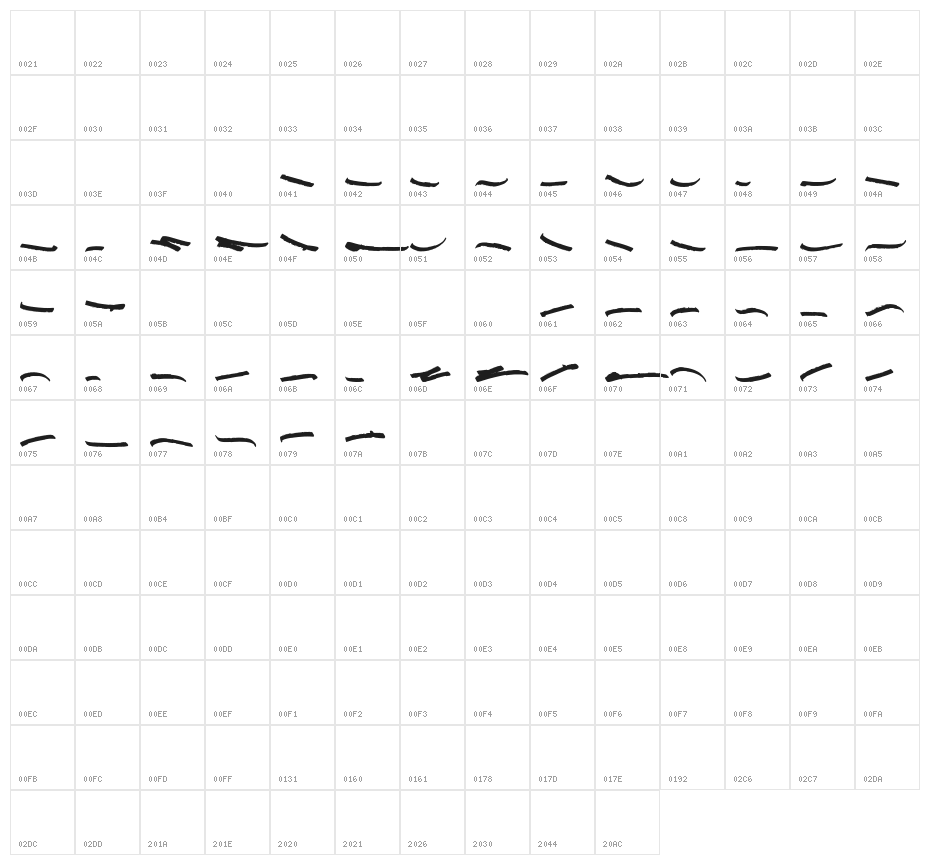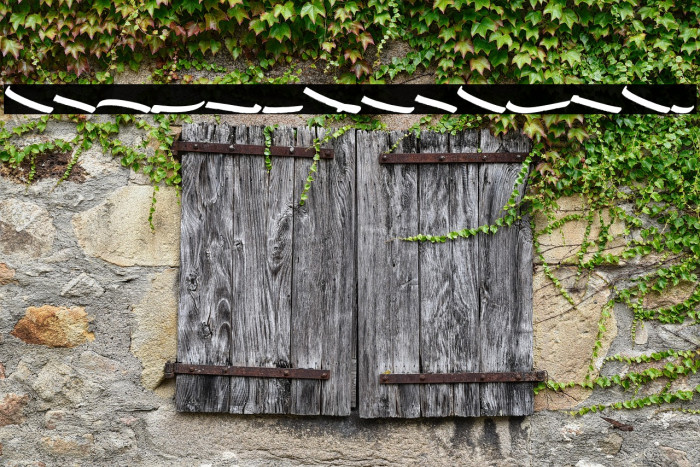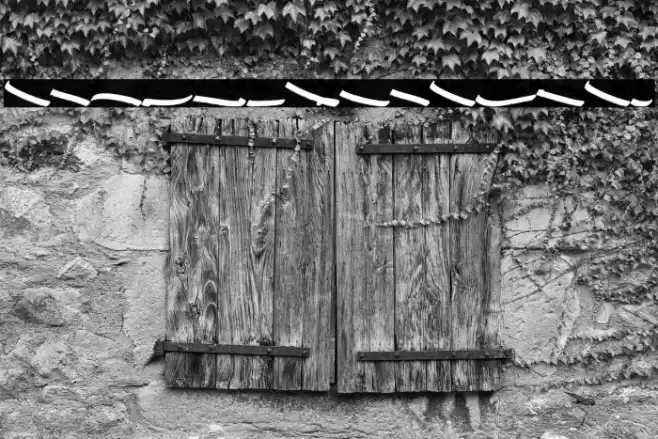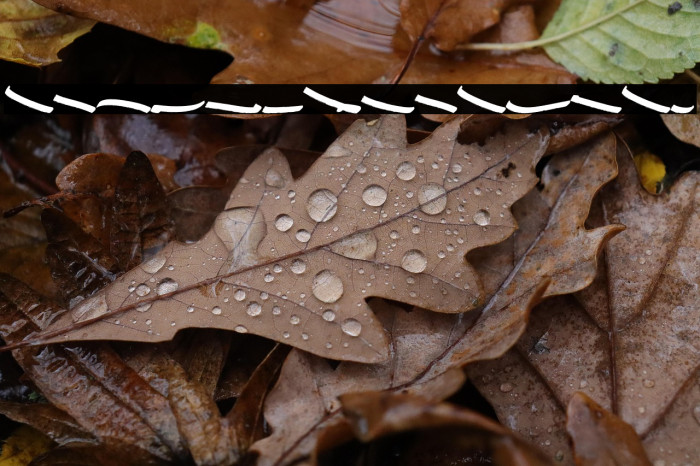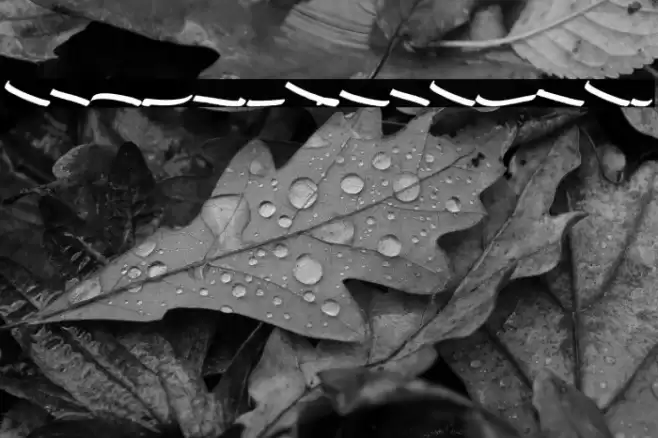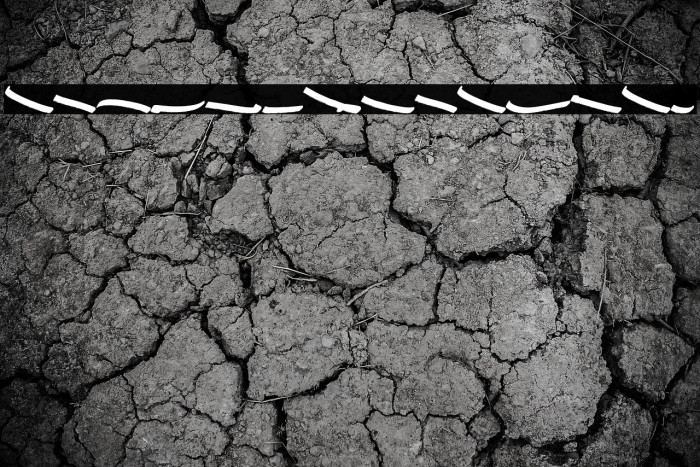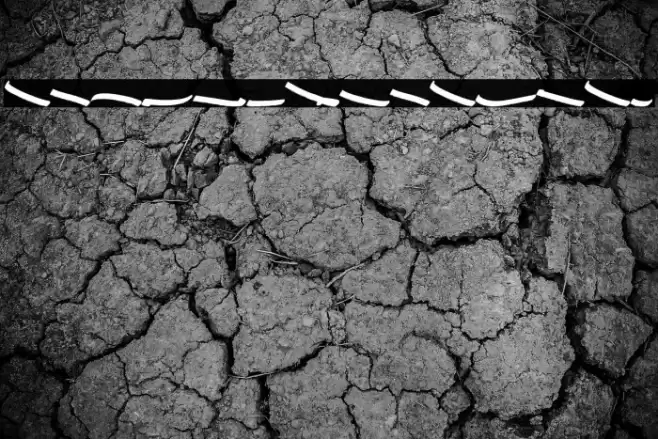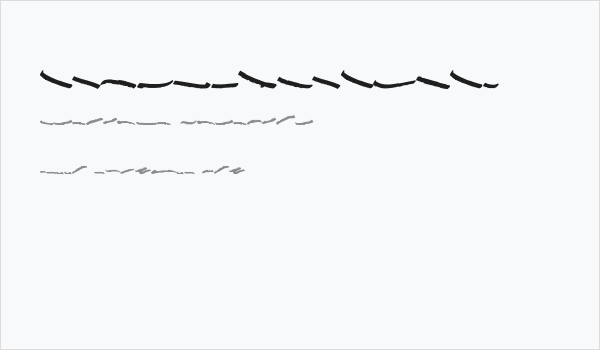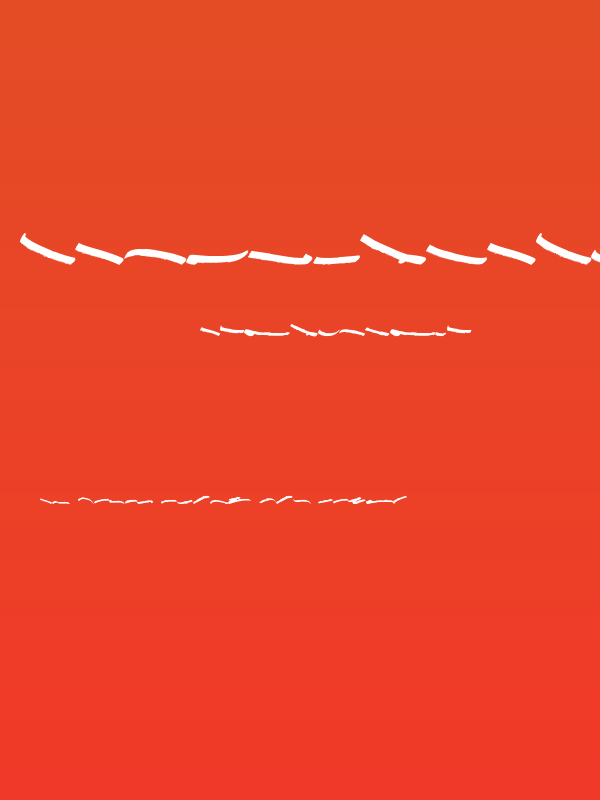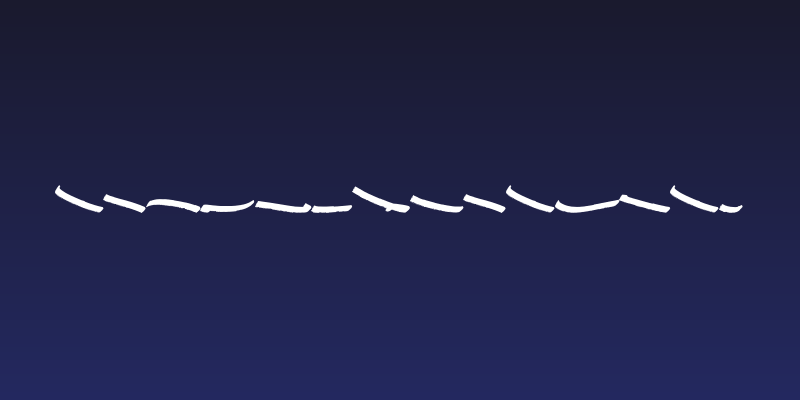
STRIKEOUTSWASH Font
STRIKEOUTSWASH Description
This font features a unique and artistic design, characterized by its flowing, brush-like strokes that create a sense of movement and dynamism. The letters are connected in a fluid manner, giving the impression of a continuous, sweeping motion. The strokes vary in thickness, adding a sense of depth and texture to the overall appearance. This font exudes a sense of creativity and spontaneity, making it ideal for projects that require a touch of artistic flair. Its distinctive style is both eye-catching and memorable, perfect for making a bold statement.
Overall StyleArtistic, Dynamic
Proposed ProjectsIdeal for creative projects such as art posters, event invitations, and branding materials that require a bold, artistic touch.